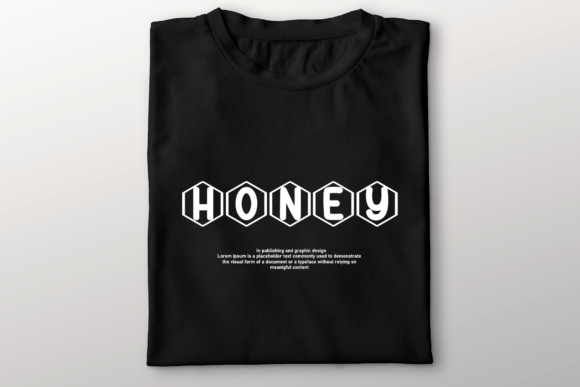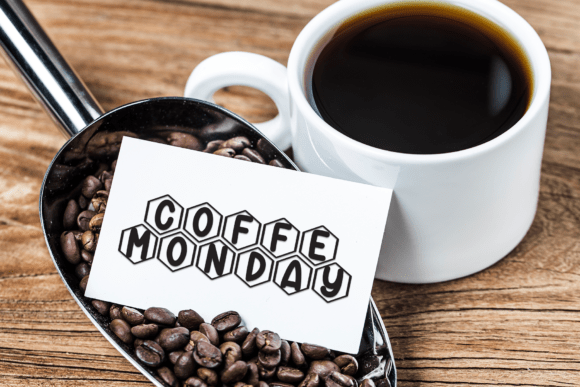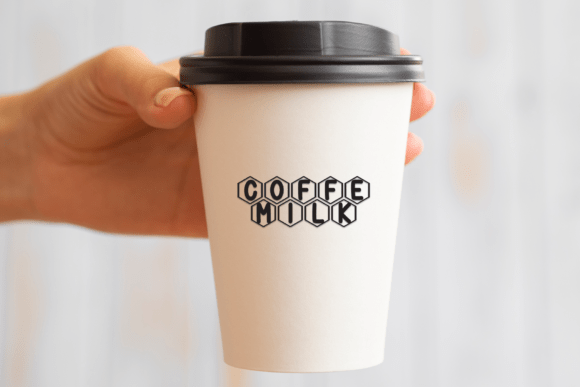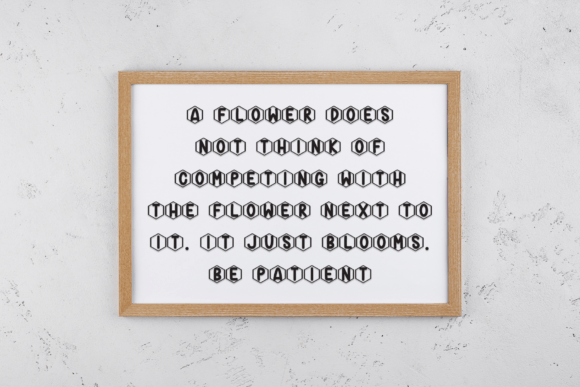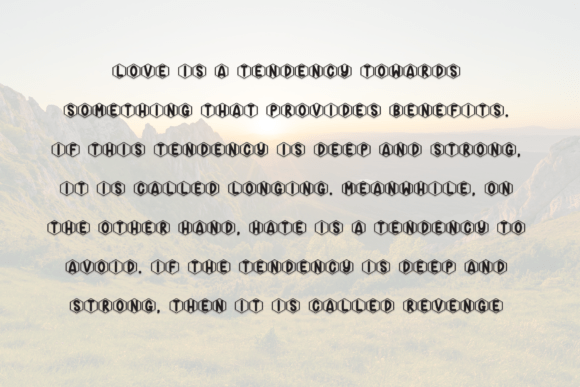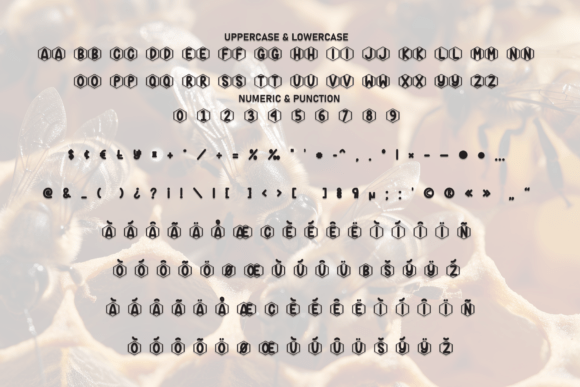
Bee Hive Font: The Sweet & Friendly Handwritten Display Font
Are you looking for a font that can add a touch of playfulness and whimsy to your design projects? Look no further than the Bee Hive Font, a charming and lively handwritten display font that’s perfect for a variety of creative endeavors. In this article, we’ll dive into the world of Bee Hive Font and explore its features, benefits, and uses.
A Font that’s as Sweet as Honey
The Bee Hive Font is a beautifully crafted handwritten display font that’s designed to infuse fun and playfulness into any design project. With its endearing and lively flair, this font is sure to capture the hearts of designers, crafters, and anyone who lays eyes on it. Whether you’re working on a wedding invitation, a heartfelt card, or any other design project that needs a dash of whimsy, Bee Hive Font is the perfect choice.
What Makes Bee Hive Font So Special?
So, what sets Bee Hive Font apart from other fonts out there? For starters, its unique and charming design makes it a standout in any design project. The font’s playful and whimsical feel is perfect for designers who want to add a touch of personality to their work. Additionally, Bee Hive Font is incredibly versatile, making it suitable for a wide range of design projects, from wedding invitations and greeting cards to posters, flyers, and more.
Perfect for Wedding Invitations and Heartfelt Cards
One of the most popular uses for Bee Hive Font is in wedding invitations and heartfelt cards. The font’s sweet and friendly design makes it perfect for conveying love, joy, and celebration. With Bee Hive Font, you can create beautiful and memorable wedding invitations that will set the tone for the big day. Additionally, the font’s playful feel makes it ideal for crafting heartfelt cards that will make your loved ones feel special.
Bee Hive Font: More than Just a Typeface
Bee Hive Font is more than just a typeface – it’s a creative tool that can elevate your designs and make them truly memorable. With its unique and charming design, this font can add a touch of personality to any design project. Whether you’re a designer, crafter, or DIY enthusiast, Bee Hive Font is a must-have in your font collection.
Benefits of Using Bee Hive Font
So, what are the benefits of using Bee Hive Font in your design projects? Here are just a few:
- Adds a touch of playfulness and whimsy: Bee Hive Font is perfect for designers who want to add a dash of fun and personality to their work.
- Versatile: This font is suitable for a wide range of design projects, from wedding invitations and greeting cards to posters, flyers, and more.
- Easy to read: Despite its playful feel, Bee Hive Font is incredibly easy to read, making it perfect for body text and headlines.
- Unique and charming design: This font’s unique design makes it a standout in any design project.
How to Use Bee Hive Font in Your Design Projects
Using Bee Hive Font in your design projects is easy! Here are a few tips to get you started:
- Pair it with other fonts: Bee Hive Font pairs perfectly with other fonts, such as sans-serif fonts and script fonts.
- Use it for headlines and titles: This font is perfect for headlines and titles, where you want to make a bold statement.
In conclusion, Bee Hive Font is a charming and lively handwritten display font that’s perfect for designers, crafters, and anyone who wants to add a touch of playfulness and whimsy to their design projects. With its unique and charming design, this font is sure to capture the hearts of anyone who lays eyes on it. Whether you’re working on a wedding invitation, a heartfelt card, or any other design project, Bee Hive Font is the perfect choice.